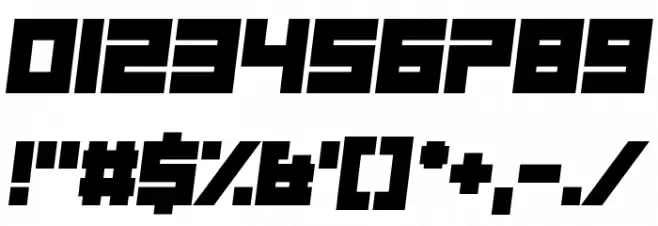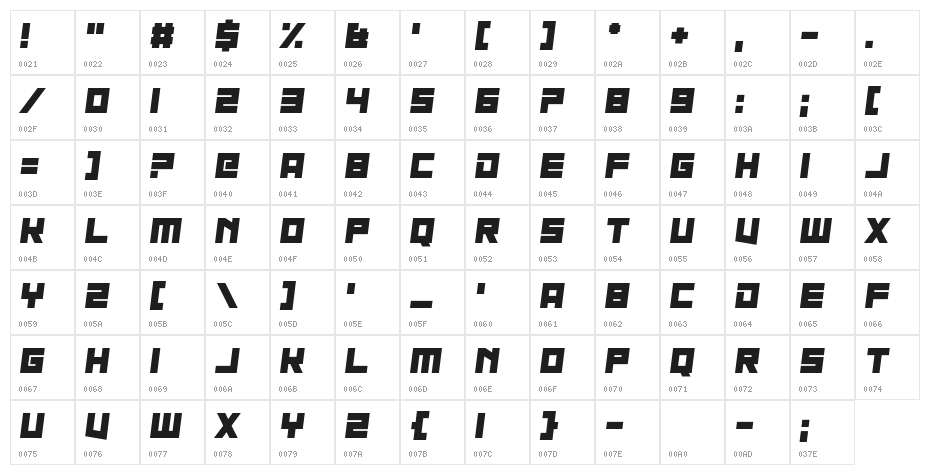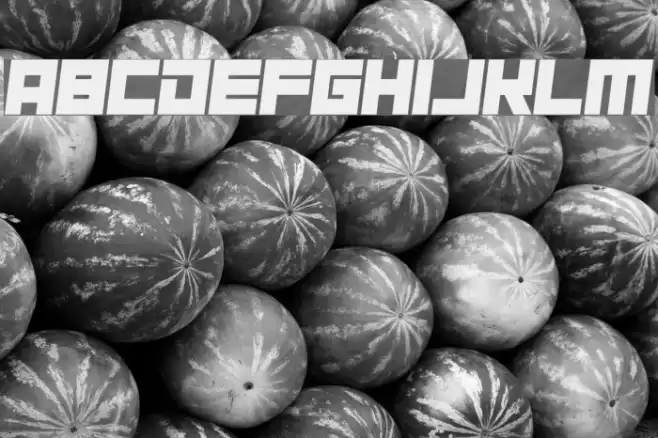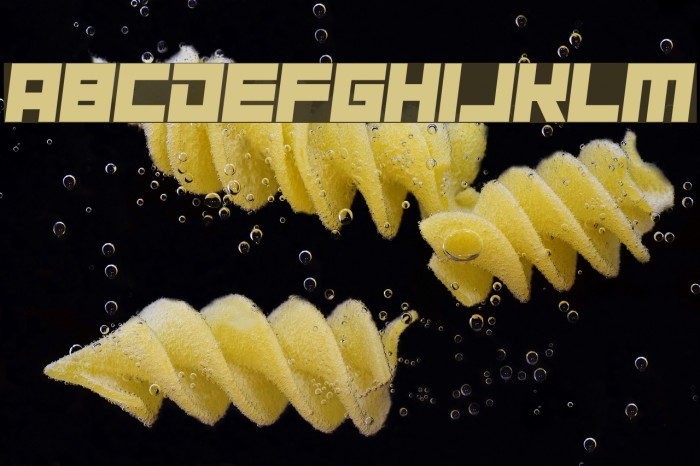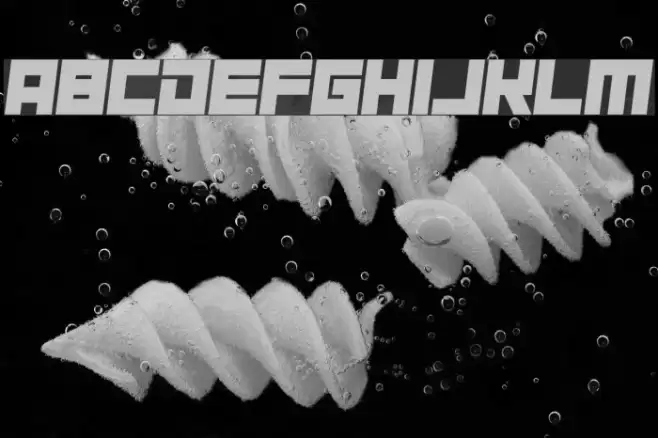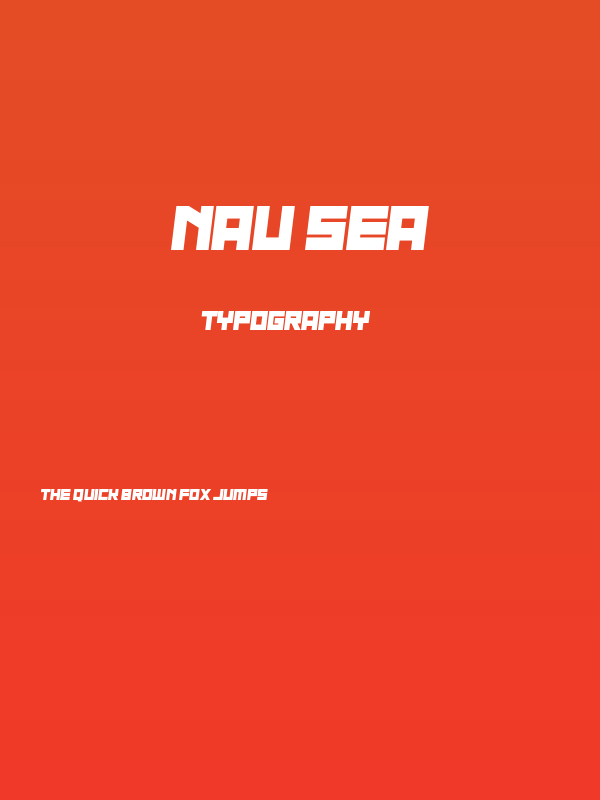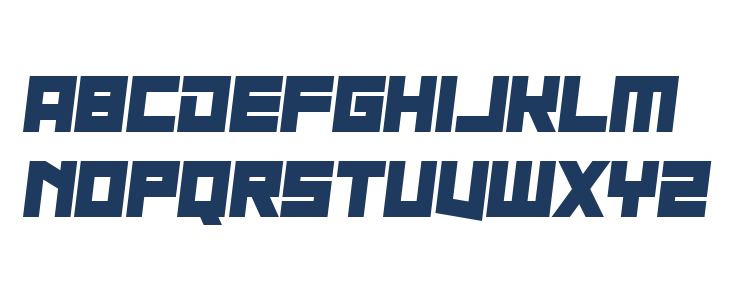
Nau Sea Font
This font features a bold, angular design with a futuristic and dynamic appearance. The characters are sharply cut with a distinct geometric style, giving them a strong and impactful presence. The uppercase and lowercase letters maintain a consistent height, contributing to a uniform look across the text. The numbers and special characters follow the same angular theme, ensuring a cohesive design throughout. The font's boldness and unique style make it ideal for projects that require a modern and edgy aesthetic.
NAU-SEA UPPERCASE
NAU-SEA LOWERCASE
NAU-SEA OTHER CHARS
| Proposed Projects | Ideal for video game titles, tech branding, sports team logos, and sci-fi themed posters. |